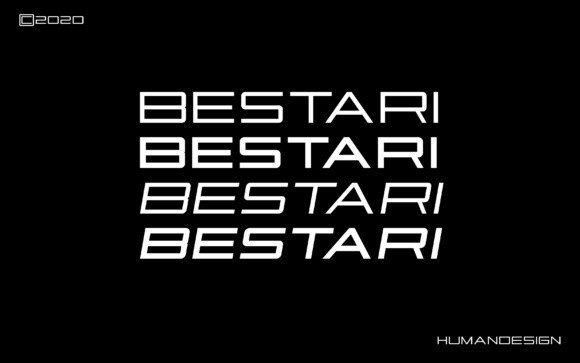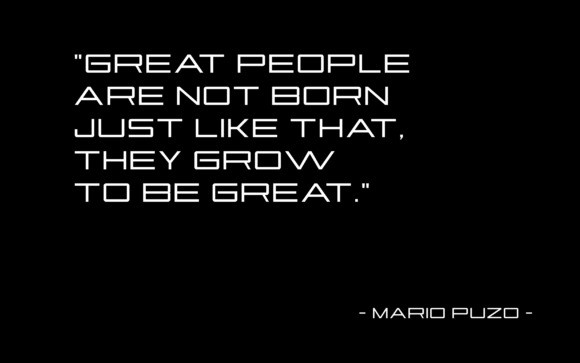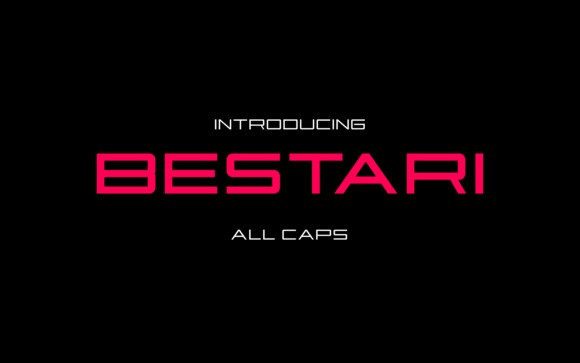
Bestari Display Font is a new sans serif display typeface inspired by things related to something modern like today. It can easily fit into any project idea, so add it to your designs, and notice its impact on your creations!